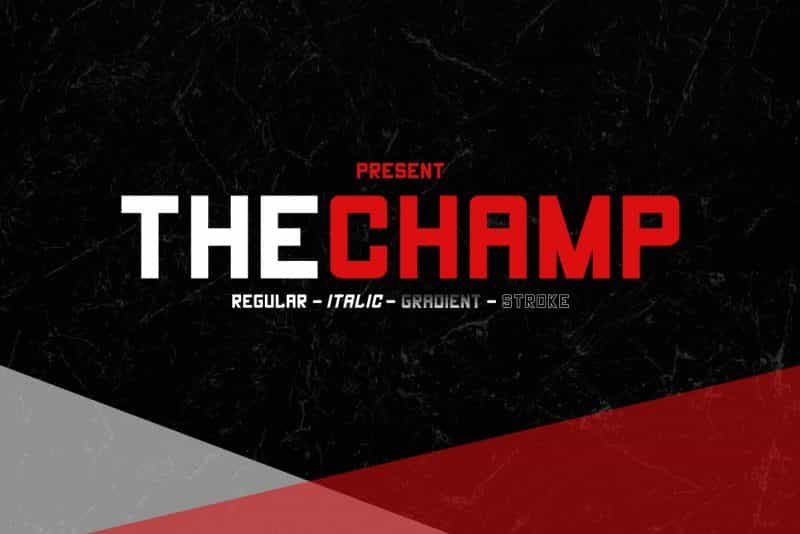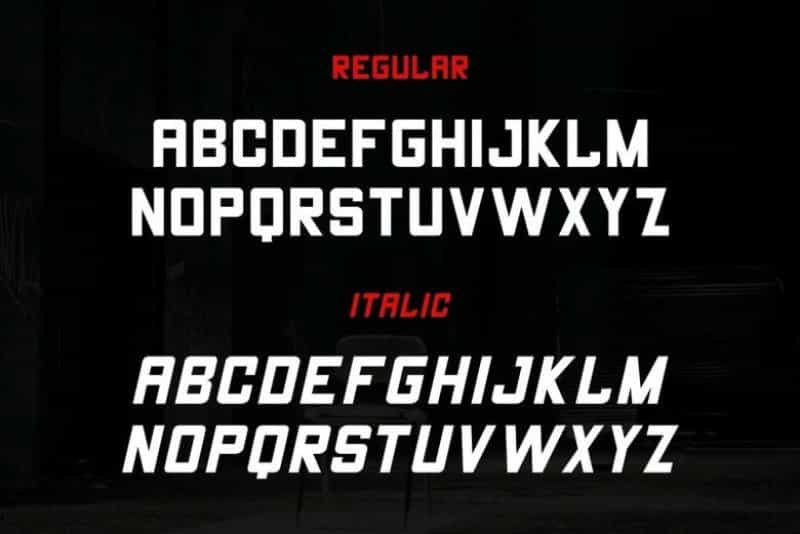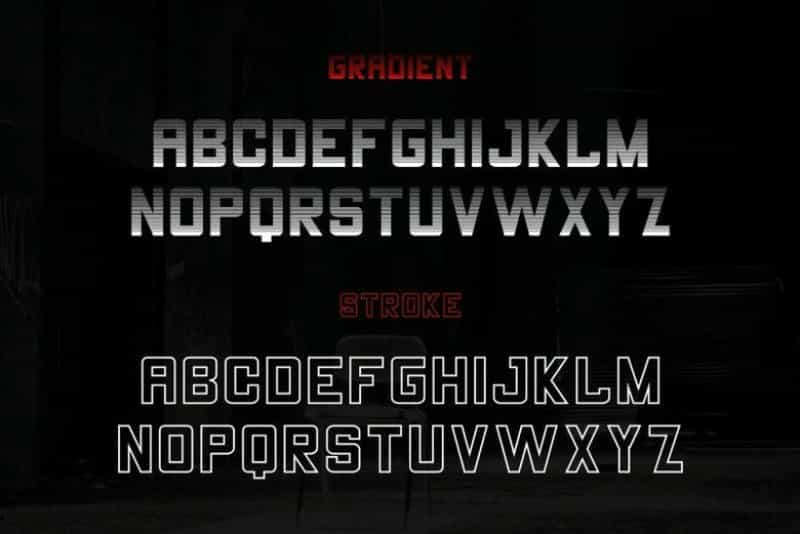
Discover The Champ Font, part of the Sans Serif collection—a versatile and unique font perfect for adding a personal touch to your projects. Download it for free and enjoy crafting designs with style, from invitations to social media posts. This font is available exclusively for personal use, giving you the freedom to create without limits. Unlock your creativity with The Champ Font today!
THECHAMP – a straightforward, bold font. Four styles : Regular, Italic, gradient and solid. Great for branding, logo, stationery, business card, signage, flyer, brochure etc. There are many industries that is suitable for this font : construction, real estate, services, racing cars and bikes club etc.